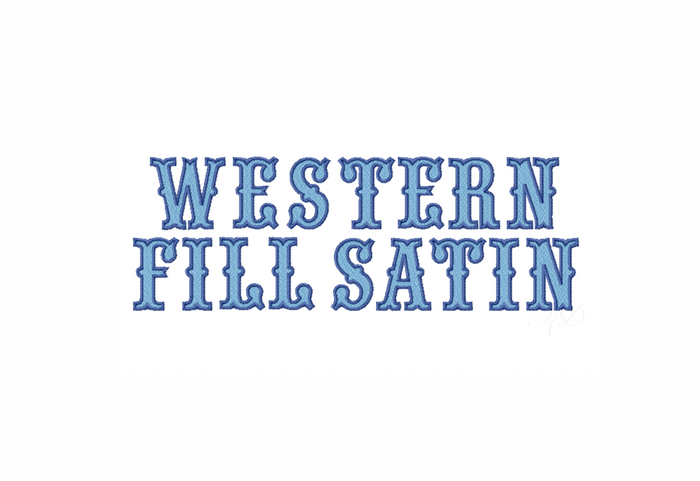
5x7 Western Fill Satin Embroidery Font
Unleash your creativity with the 5x7 Western Fill Satin Embroidery Font, perfect for personalized monogramming! This two-color embroidery font features both a rich fill and a contrasting satin outline, making it an ideal choice for crafters and DIY enthusiasts looking to elevate their projects.